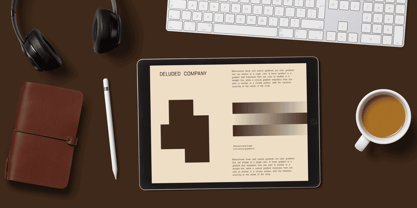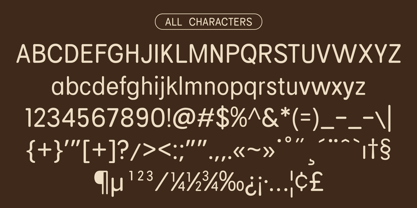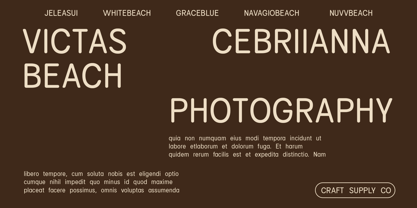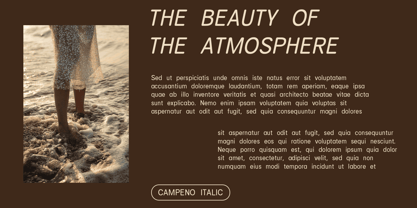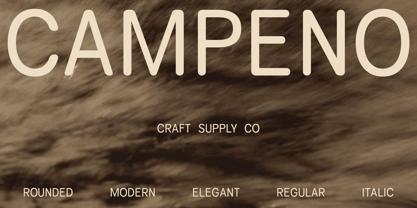
Campeno Rounded
by Craft Supply Co
The Campeno Rounded Font Family was designed by Trio Nazzar Saputra, Wahyu Hadi Yuana and published by Craft Supply Co. Campeno Rounded contains 2 styles and family package options. More about this family
Campeno Rounded: A Friendly Sans Serif
Warm and Inviting Design
Campeno Rounded presents a sans serif typeface with low contrast and rounded stem endings, exuding a welcoming and approachable vibe.
Softened Contrast for Comfort
With its low-contrast design, This font offers a gentle visual experience, ensuring readability and comfort across various applications.
Rounded Stem Endings
The rounded endings of This font stems add a soft and friendly touch to each character, enhancing its overall warmth and friendliness.
Ideal for Friendly Communication
Designed to foster a sense of friendliness and approachability, This font is perfect for conveying warmth and sincerity in communication, whether in digital or print media.
Approachable and Comfortable
This font stands out as a sans serif font that prioritizes friendliness and comfort. With its low contrast and rounded stem endings, it fosters a welcoming atmosphere in any design project, ensuring that your message is conveyed with warmth and sincerity.